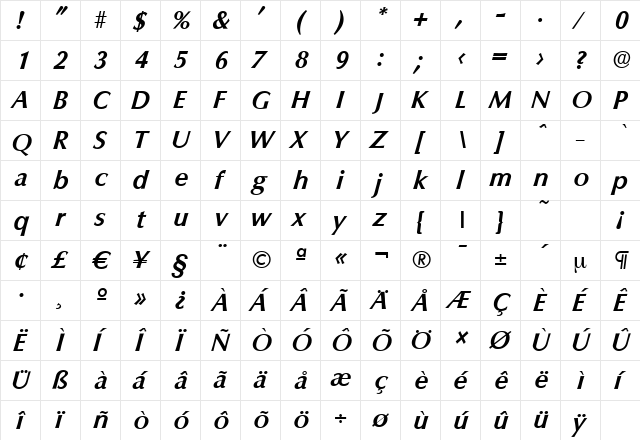
ColumbiaSerial BoldItalic
Design Context for ColumbiaSerial Typeface
ColumbiaSerial offers clean, dependable letterforms without strong stylistic allegiance, making it a practical choice for designers who need flexibility. Its italic angle brings a sense of urgency and motion to the letterforms. The heavy weight commands attention and anchors typographic hierarchies.
Pro Tip: Use ColumbiaSerial for emphasis, pull quotes, and subheadings where its slanted energy can add rhythm to the layout.